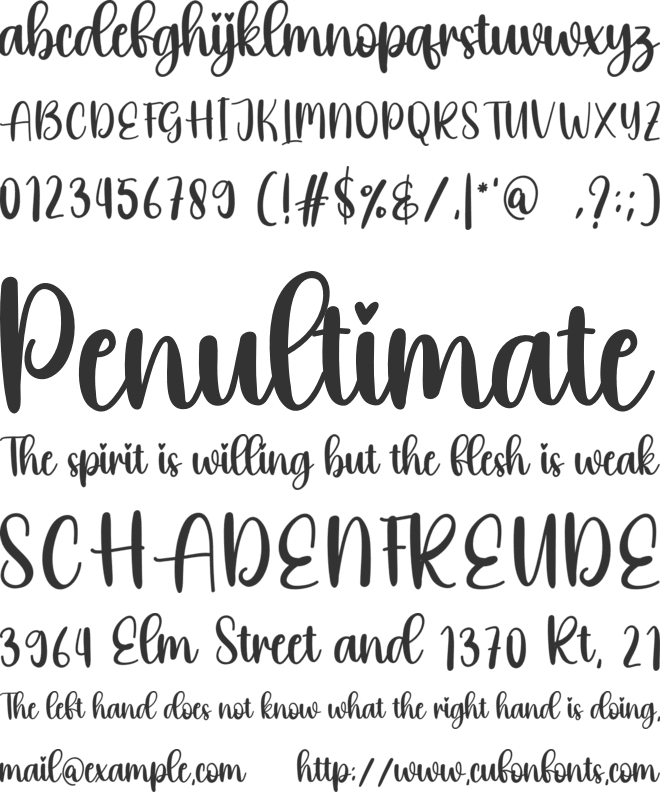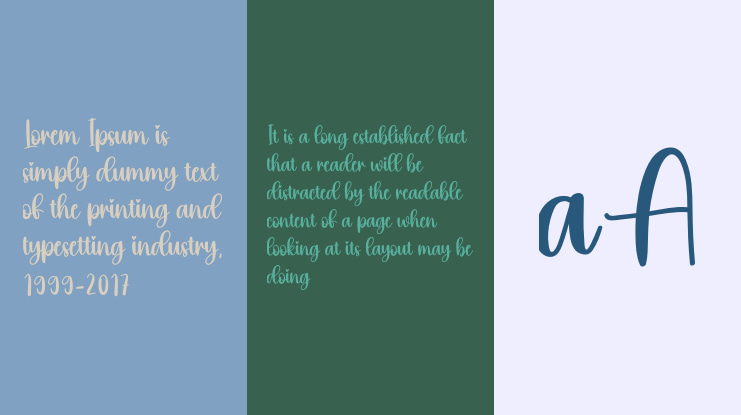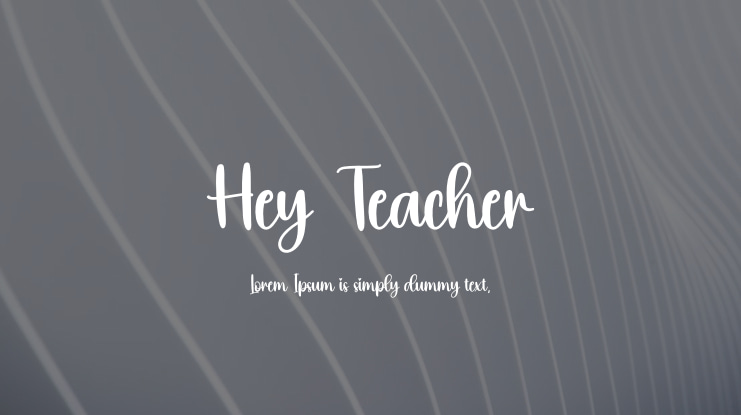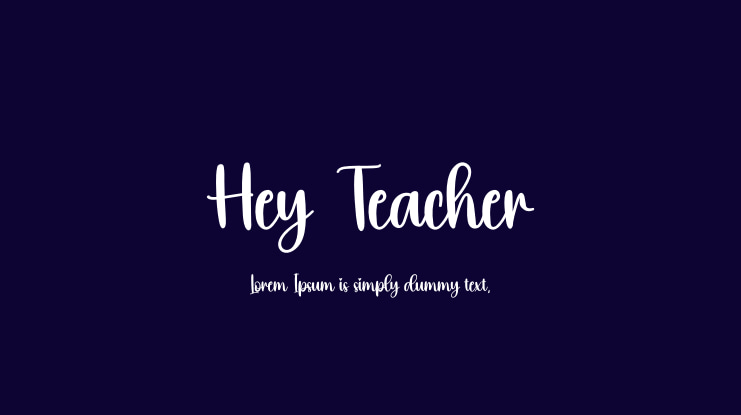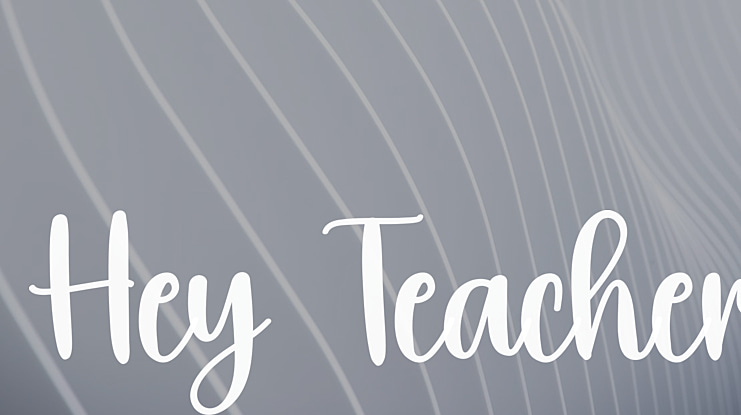
Hey Teacher Font
Our latest collection of stylish fonts is perfect for a variety of applications including wall displays, wedding invitations, social media logos, advertisements, product packaging, labels, photography, watermarks, invitations, stationery, and any project that requires elegant handwriting.